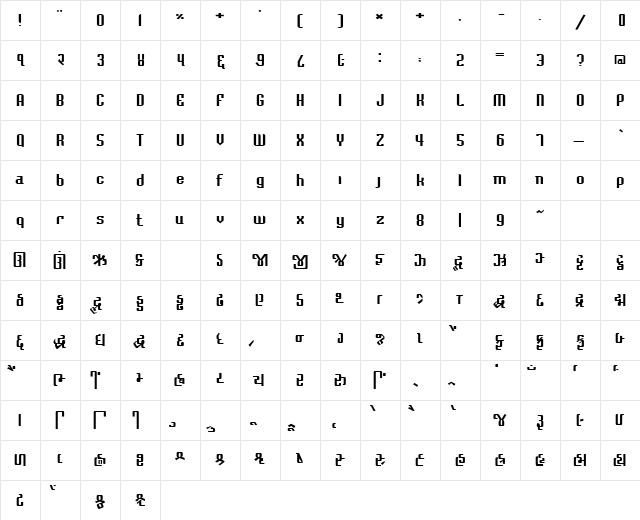
AkrutiOfficeVallabh Normal
Design Context for AkrutiOfficeVallabh Typeface
AkrutiOfficeVallabh offers clean, dependable letterforms without strong stylistic allegiance, making it a practical choice for designers who need flexibility.